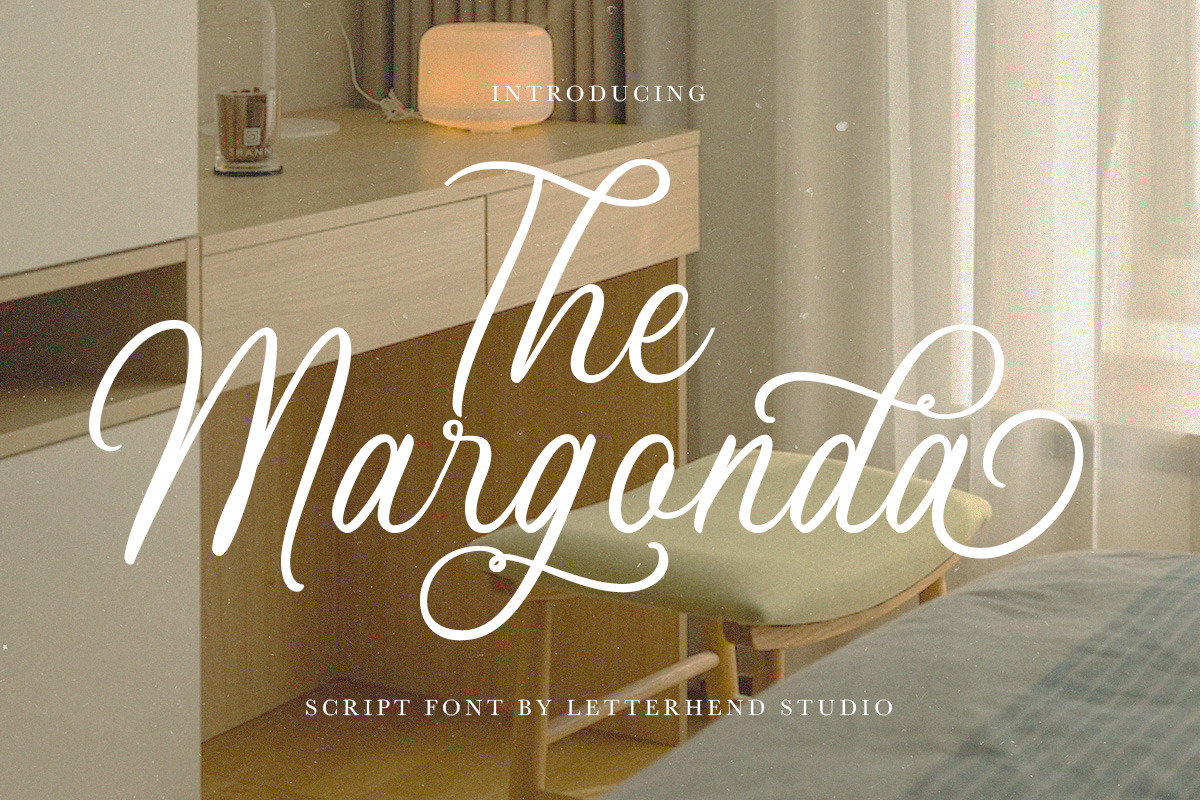
The Margonda - Script Font
The Margonda font is a gorgeous script font that captures the essence of femininity and grace. The fine strokes and intricate details of this font make it a beautiful choice for designs that require a romantic and dreamy feel, such as wedding invitations and the other various formal forms such as invitations, labels, logos, magazines, books, greeting / wedding cards, packaging, fashion, make up, stationery, novels, labels or any type of advertising purpose.